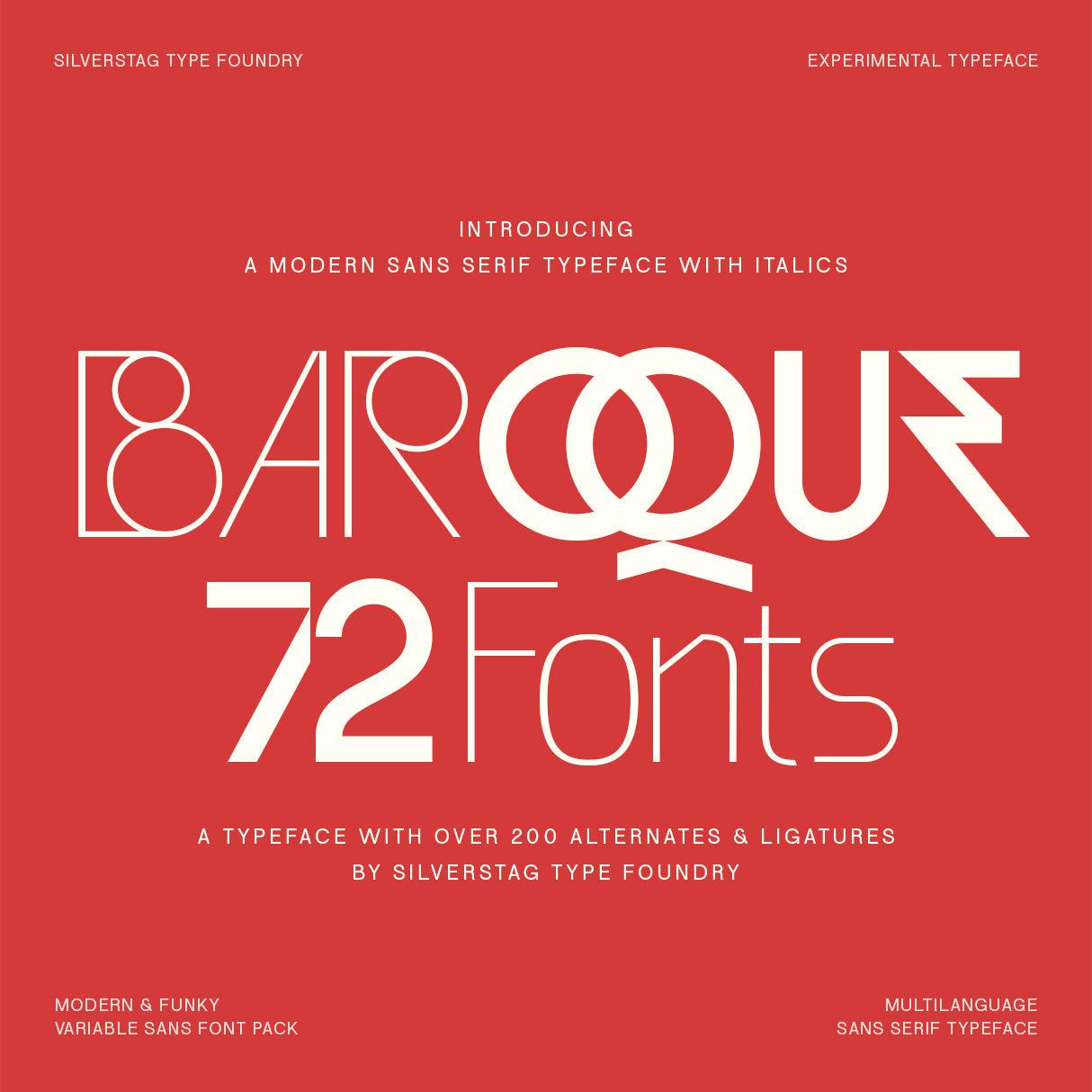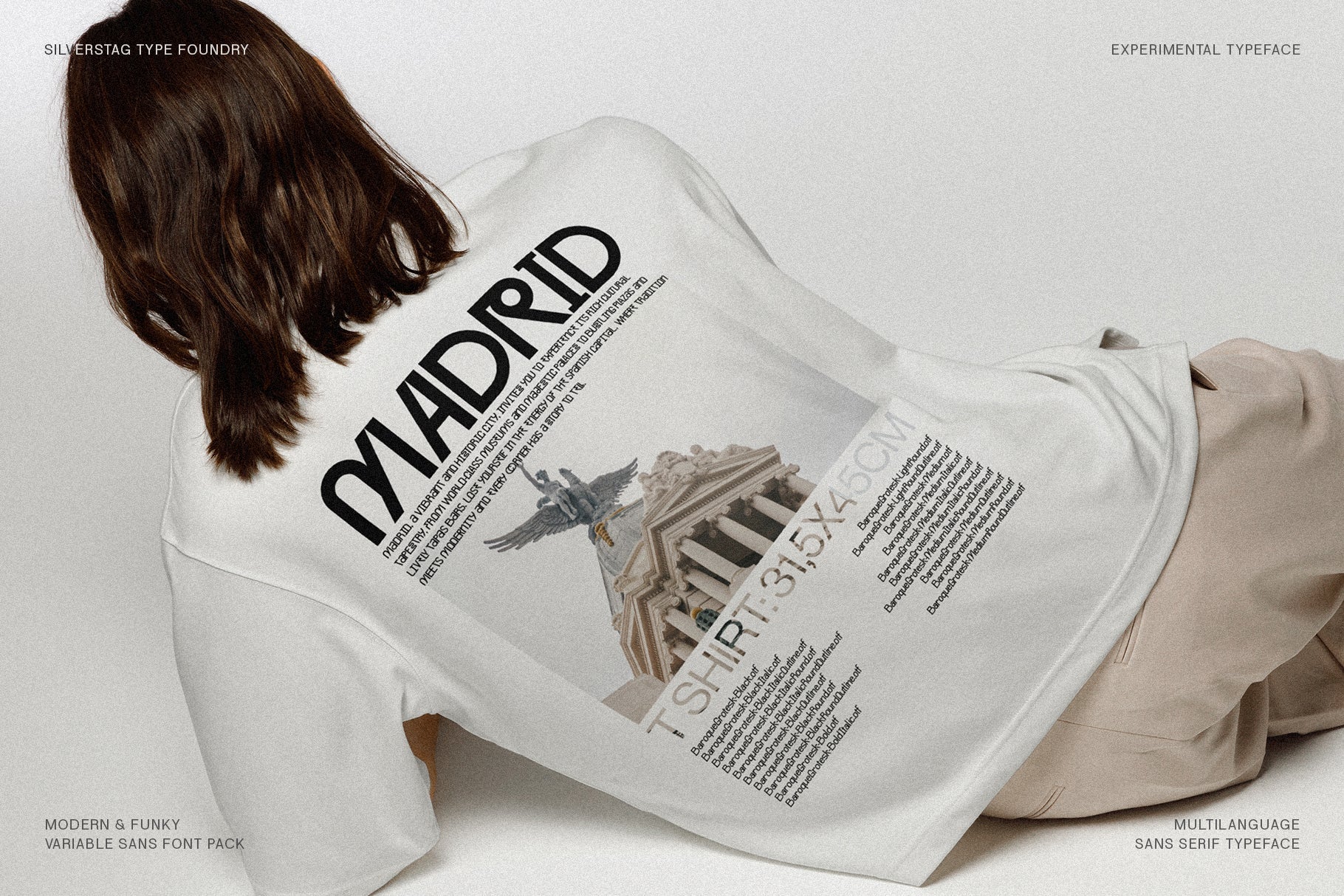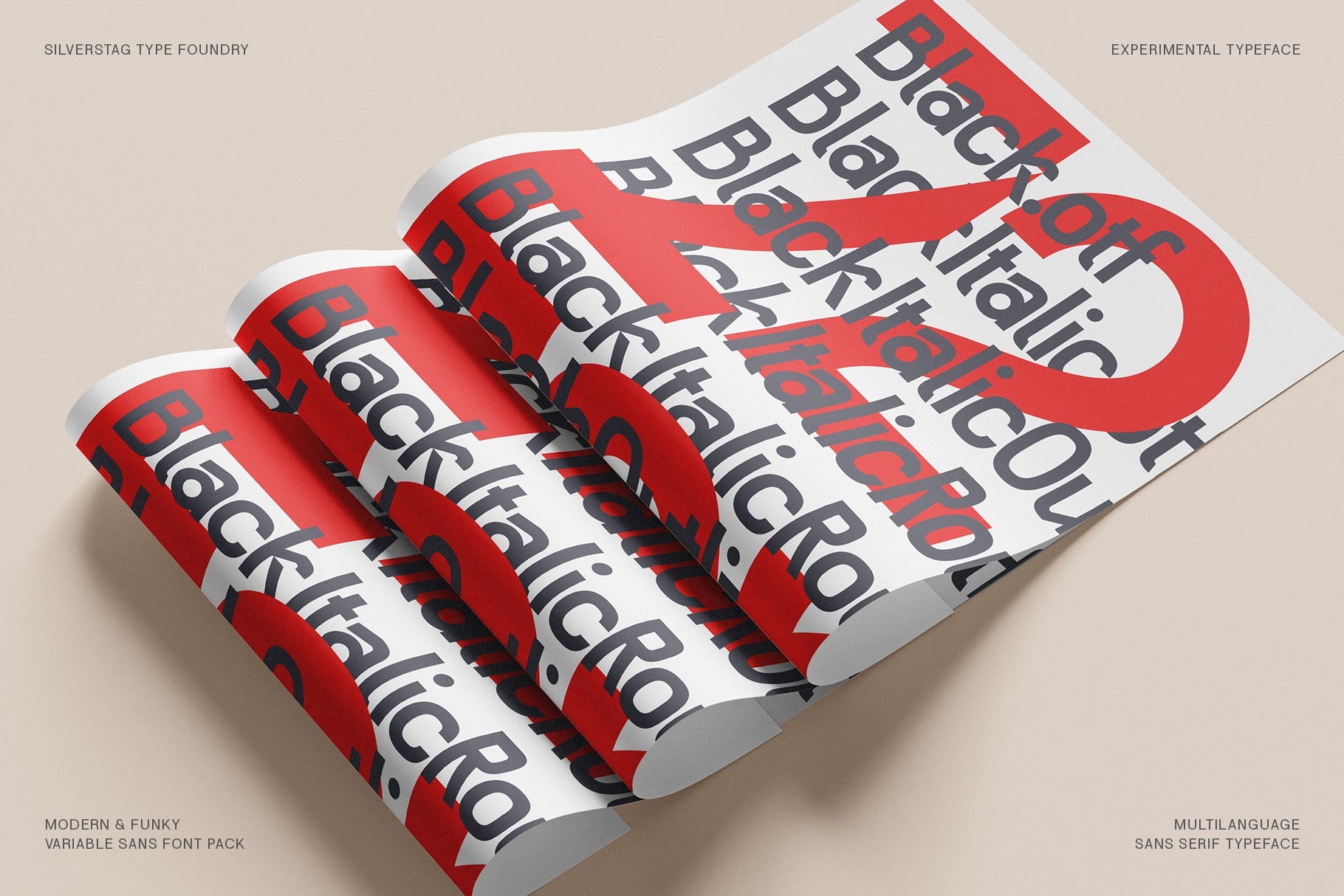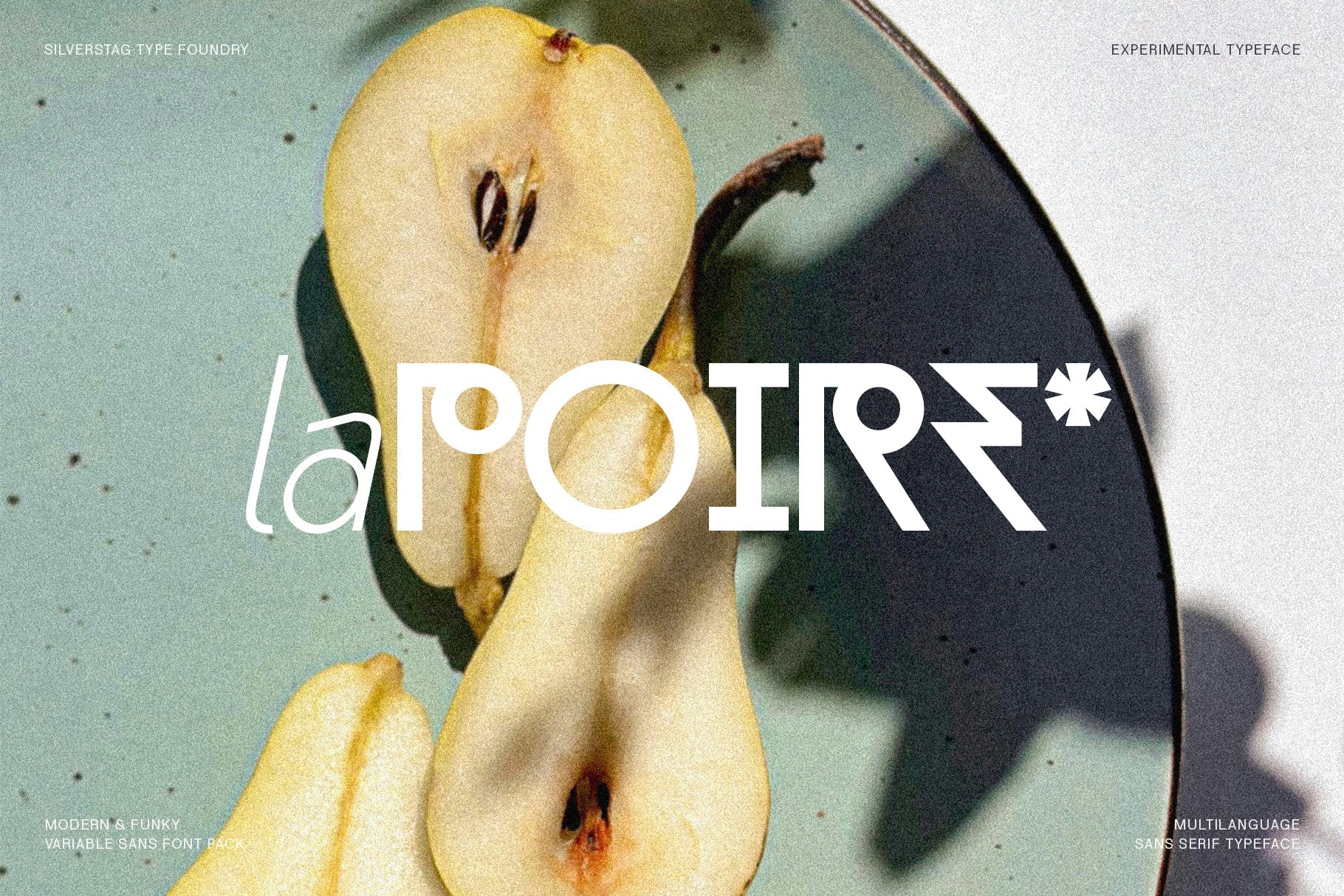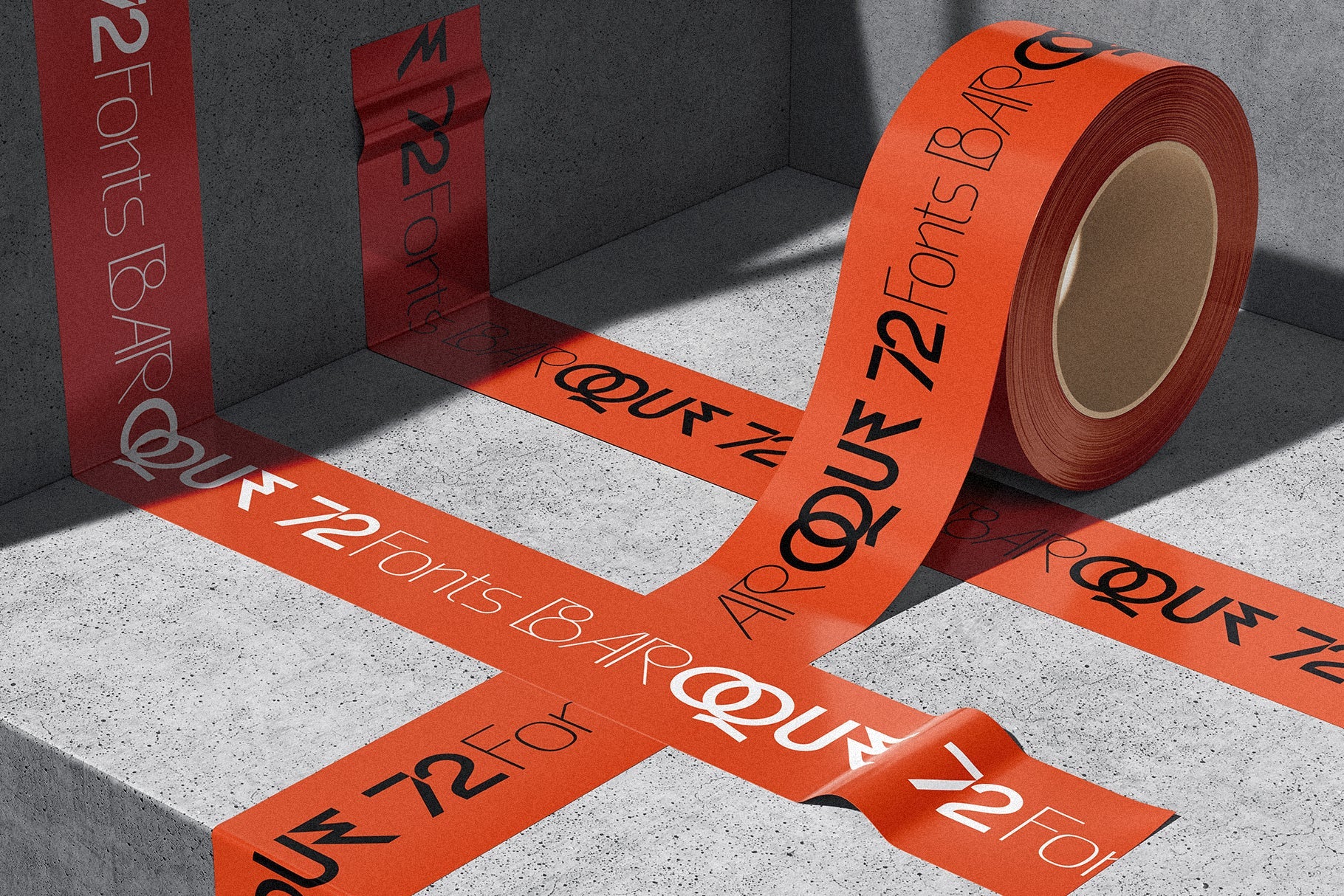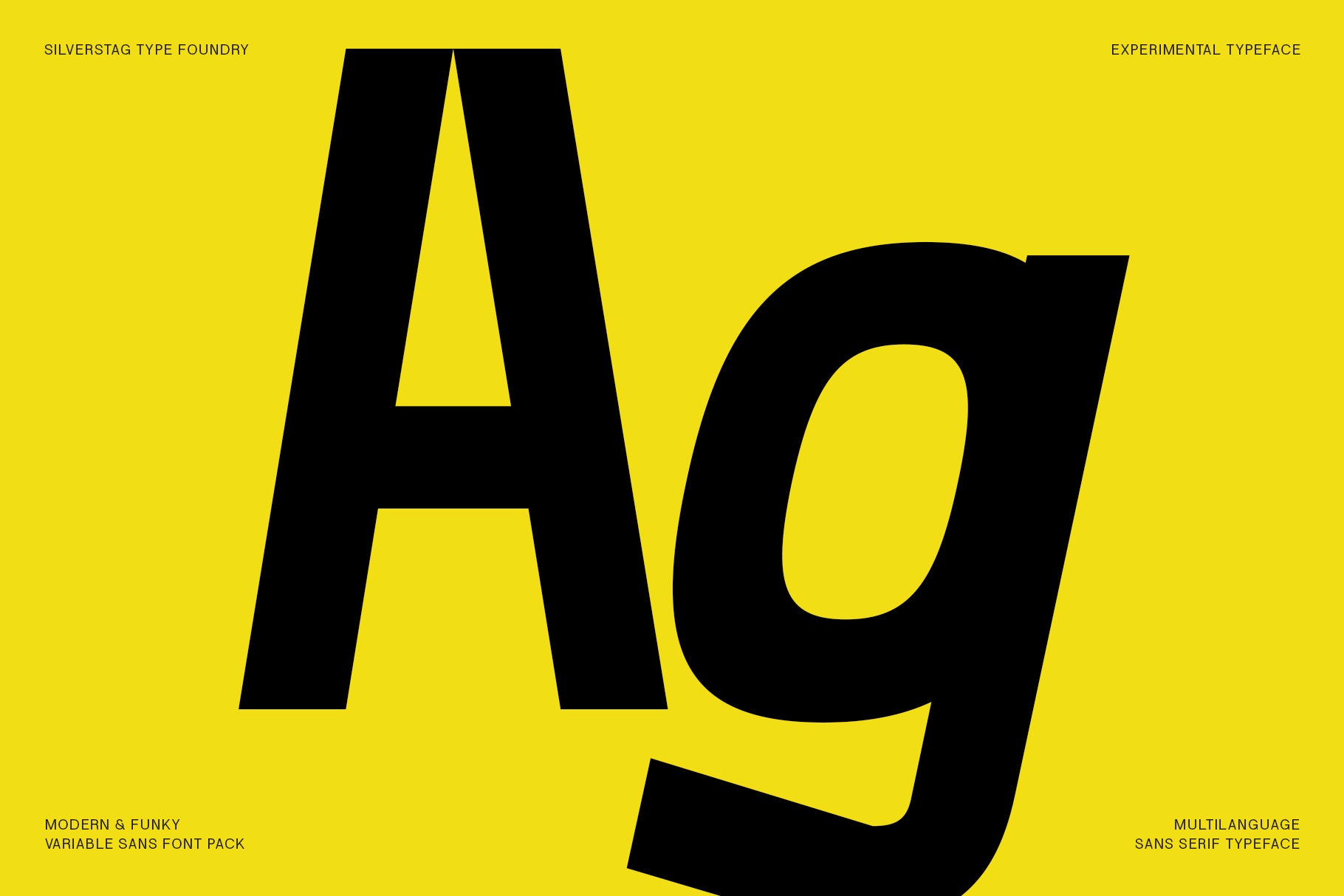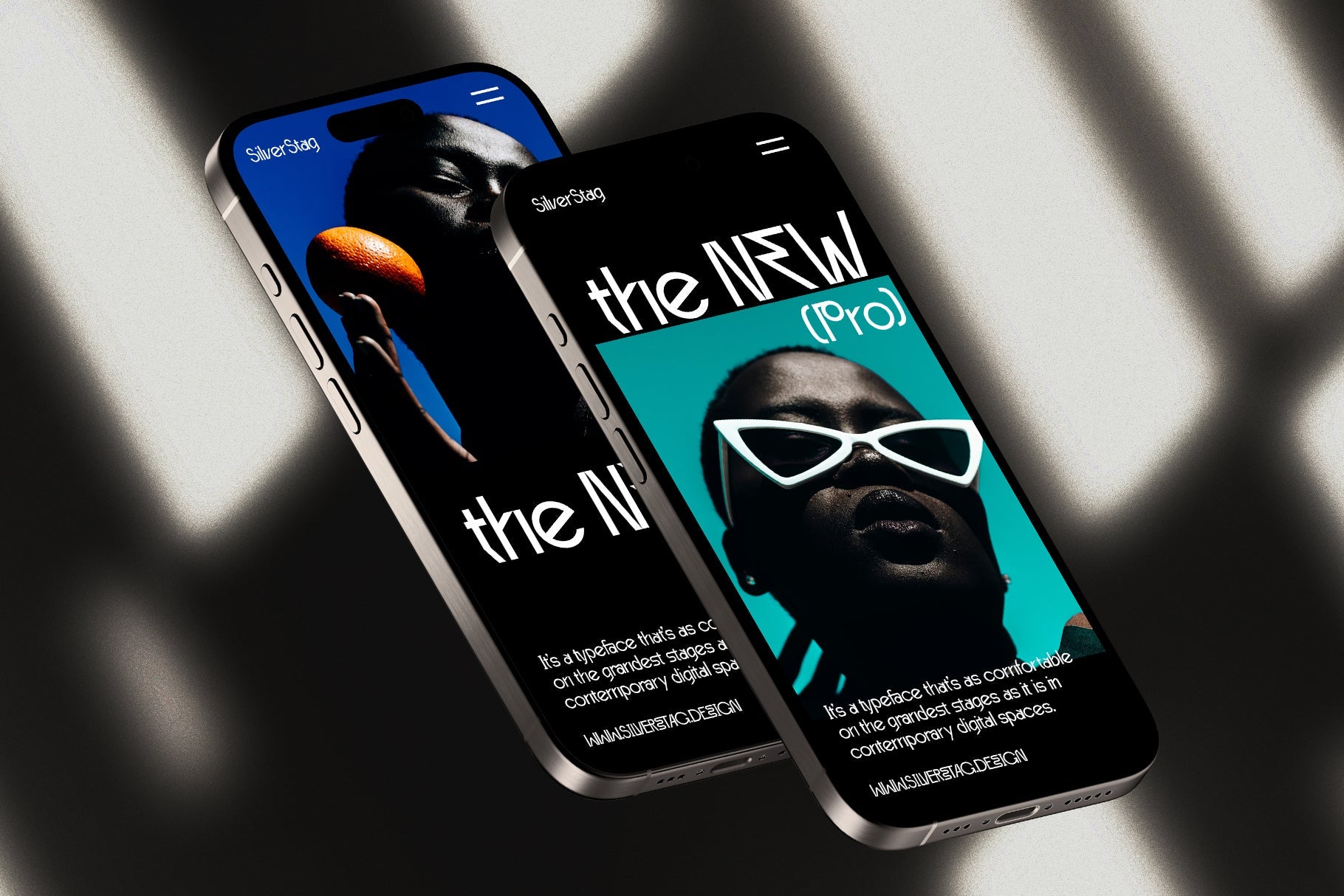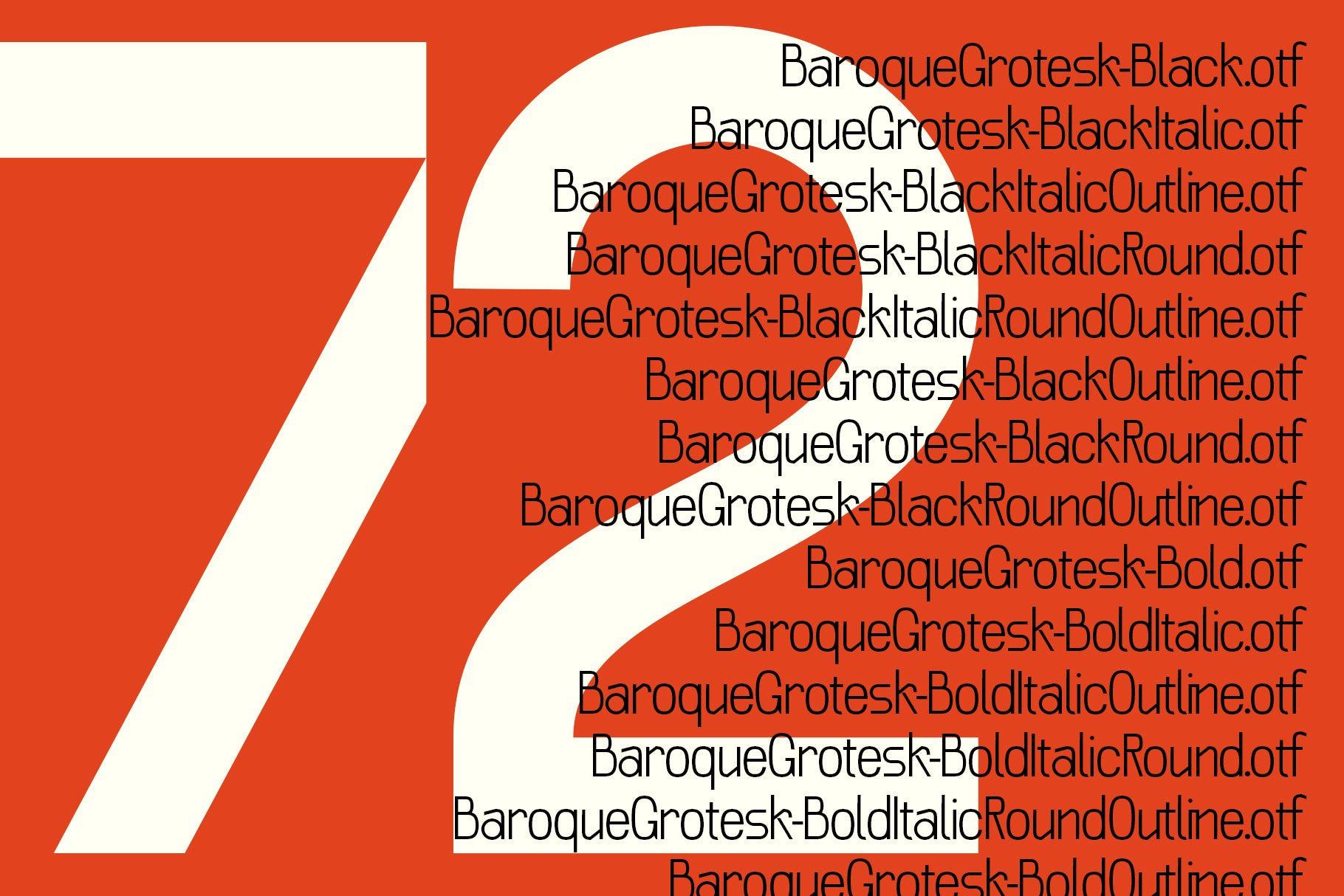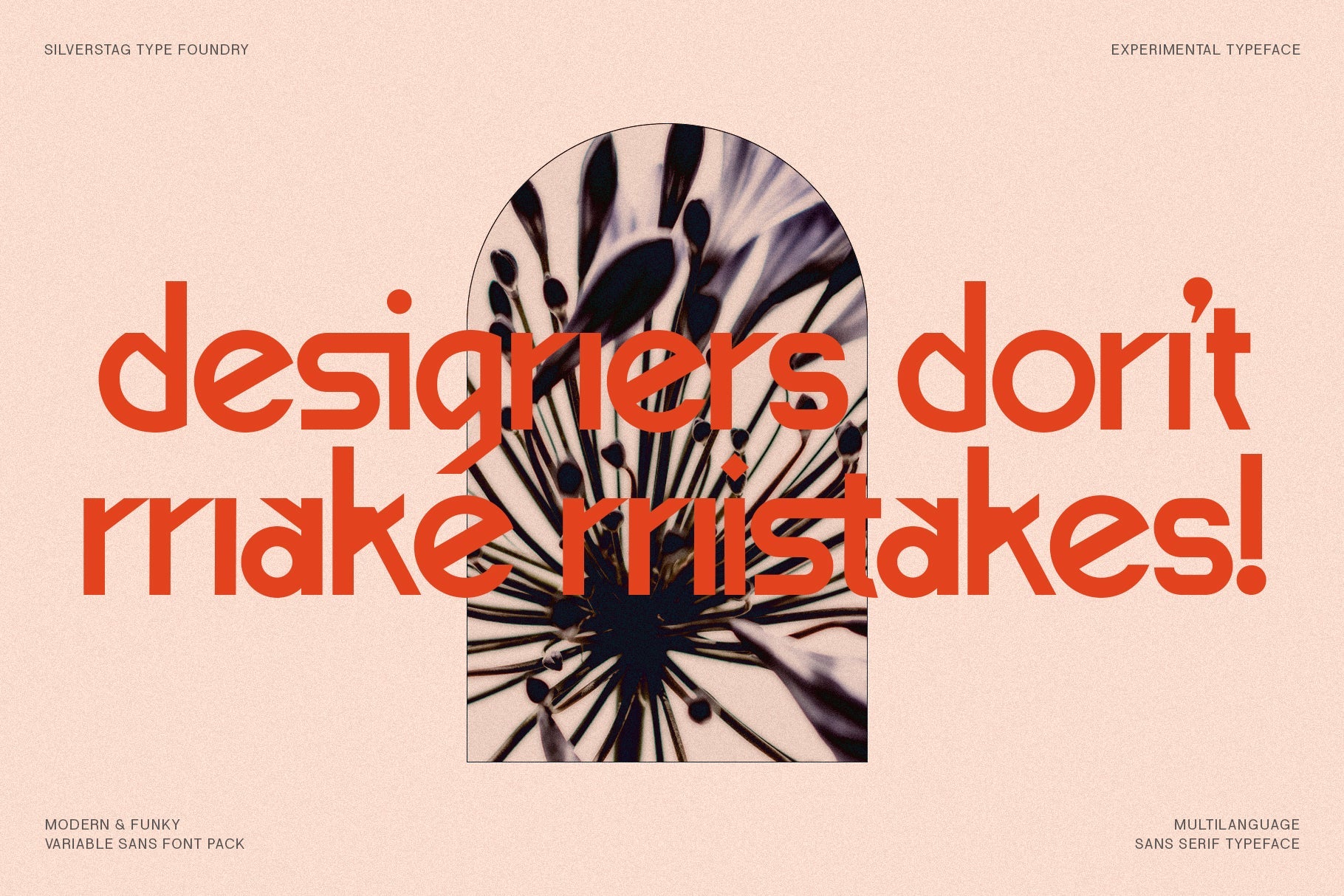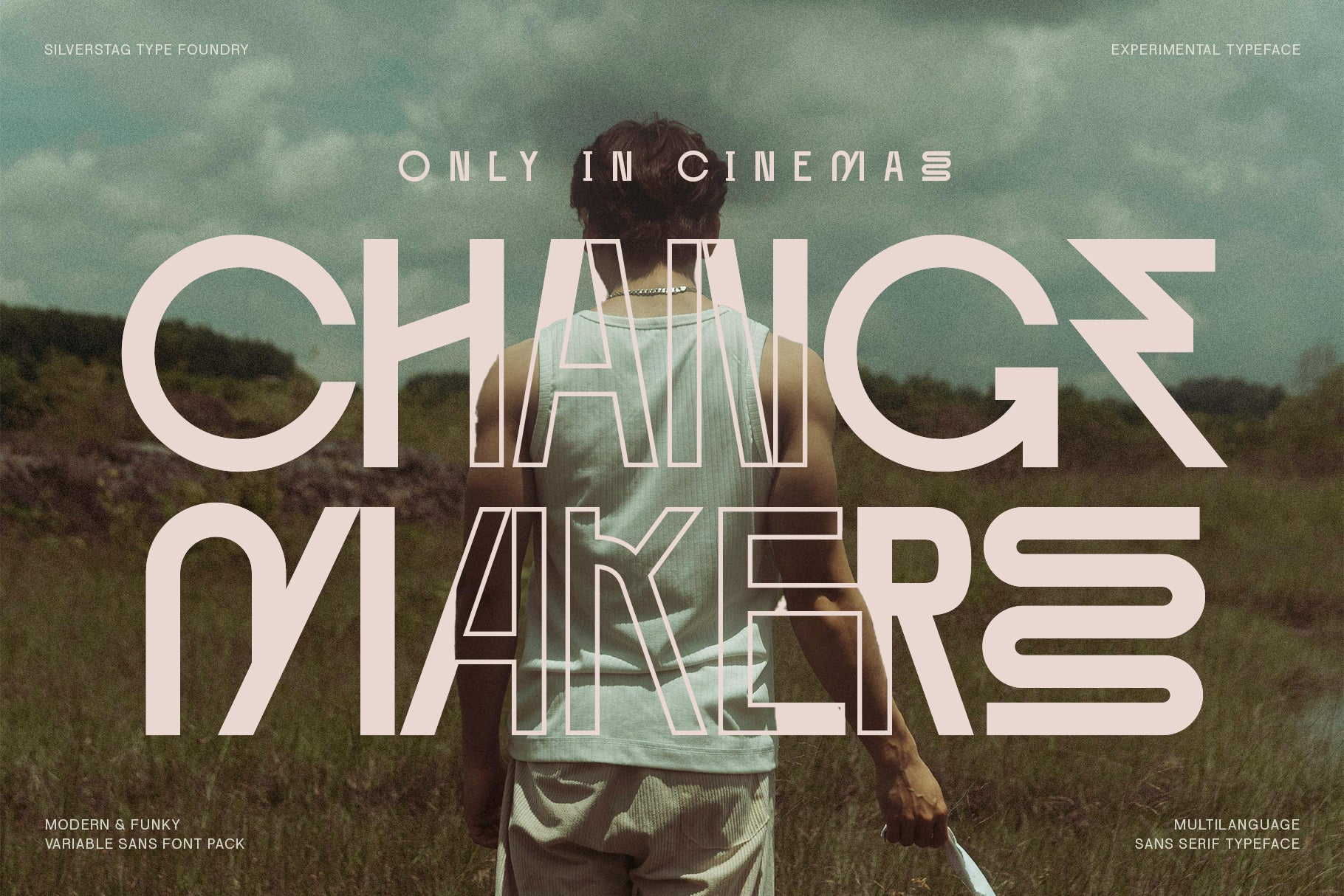
Baroque Grotesk Typeface (72 Fonts)
Baroque Grotesk V2: A Typographic Symphony Expanded
Baroque Grotesk V2 is a testament to the enduring power of timeless design. This expanded font family seamlessly weaves the intricate beauty of baroque aesthetics into the clean lines of geometric forms, creating a typeface that's both captivating and adaptable.
With a staggering 72 individual fonts at your fingertips, Baroque Grotesk V2 empowers you to craft designs that are as unique as they are impactful. You'll find 9 weights, ranging from delicate Thin to Black, and each weight comes in four distinct styles:
• Regular
• Round
• Outlined
• Round Outlined
And to top it off, each of these 36 styles also has a corresponding italic version, giving you a total of 72 fonts to play with!
The Baroque Grotesk Typeface is a comprehensive font family that includes 72 individual fonts, each available in four distinct styles: Regular, Round, Outlined, and Round Outlined. The set also includes over 200 alternates and ligatures, three stylistic sets, and supports 92 languages. The new version 2 offers variable fonts for seamless adjustment of weight and style.